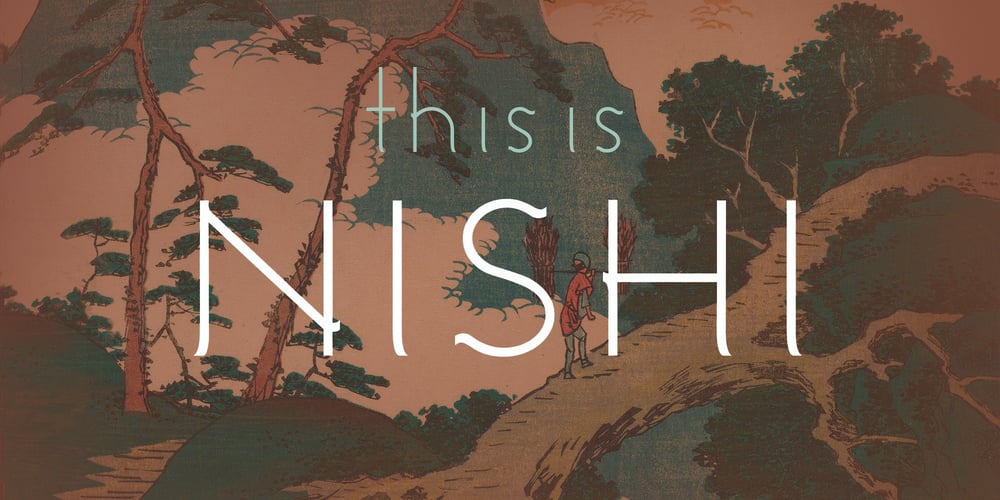
Nishi Font Family was designed by David Szabo and published by LostandFoundry. Nishi contains 2 styles and family package options. Nishi is another beautiful new ‘crossover font’ from LostandFoundry.This designer font is loaded with character and has the look and feel of a modern sans serif font, but with subtle, ‘serif-like’ touches. Nishi is inspired by my love of Japan and its culture, and I wanted that influence to be subtle, not stereotypical. Use Nishi in your design projects – in headlines, titles, logos, text, packaging design and signage. And online in websites, blogs, vlog titles, Youtube creator titles and social media post titles, when you need a modern font with clean lines, but want something with a unique, elegant and sophisticated identity. Nishi supports French, German and other European languages.